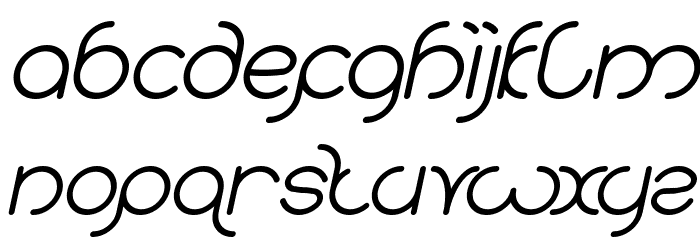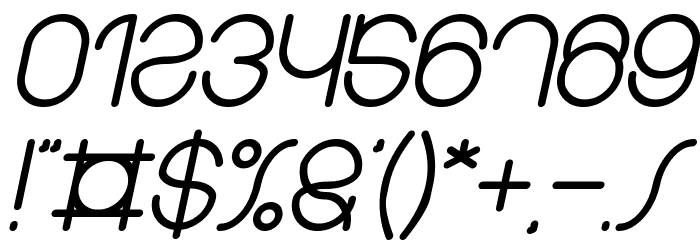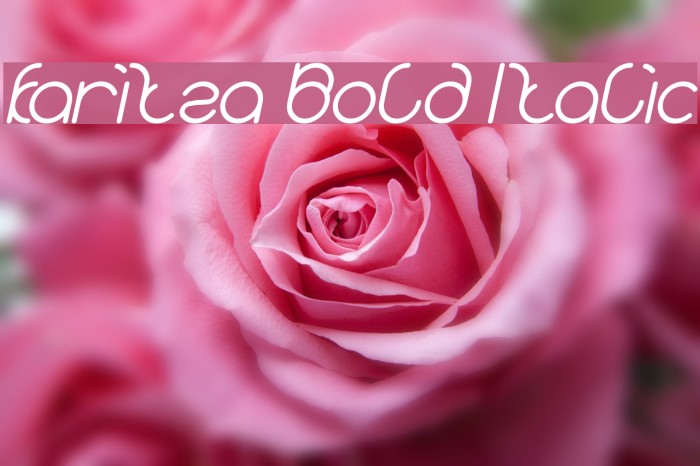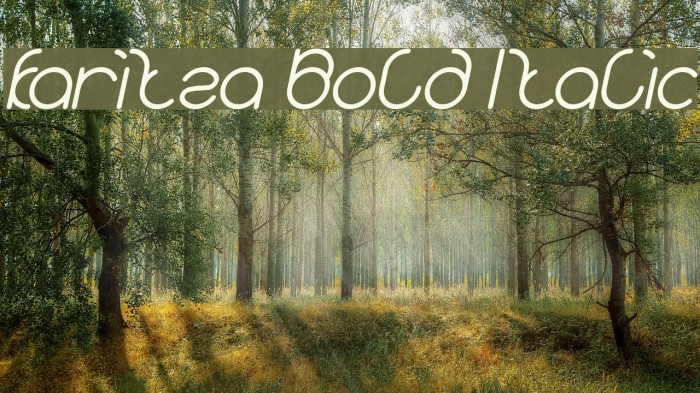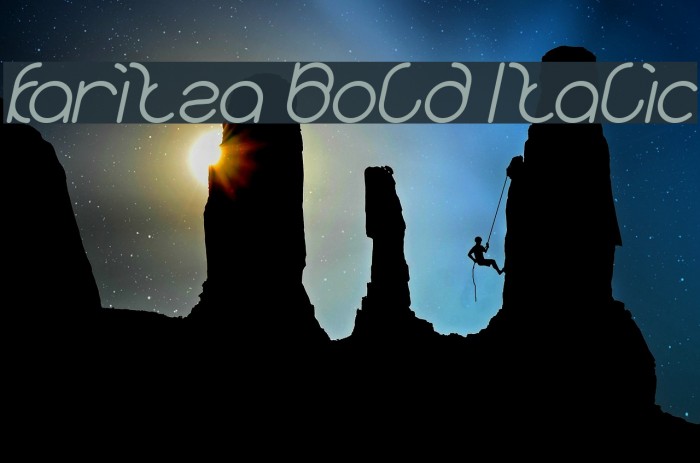
karitza Bold Italic Font
This font features a unique blend of boldness and elegance with its italicized style. The characters are crafted with smooth, flowing curves that give a sense of motion and fluidity. The uppercase letters maintain a consistent height, while the lowercase letters exhibit a playful yet sophisticated design. Numbers and special characters are seamlessly integrated, maintaining the overall aesthetic. The font's distinctive style makes it suitable for creative and artistic projects, offering a modern twist on traditional script fonts. Its bold and italic nature adds emphasis and flair, making it stand out in any design.
A bold, italic font with smooth, flowing curves and a modern, artistic style.
- Proposed Projects: Ideal for branding, logos, invitations, and artistic projects requiring a modern and elegant touch.
- Use Case: Logos, Invitations, Artistic projects